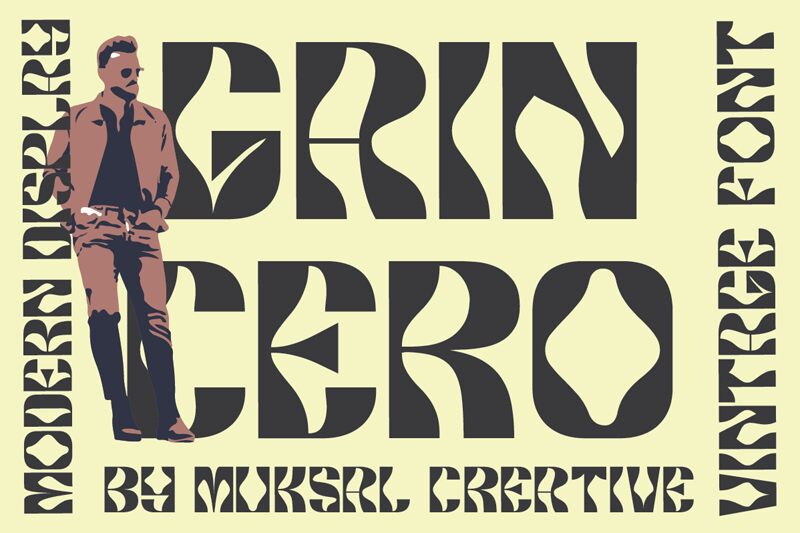
Gaincero Regular
Gaincero font by Muksal Creative is a bold retro display font with strong geometric influences. This decorative typeface showcases a uniquely ornamental, artistic, symmetrical, and structured visual. Each character within the alphabet set has its own appeal and charm, yet they connect appealingly together to create that unique contemporary look.